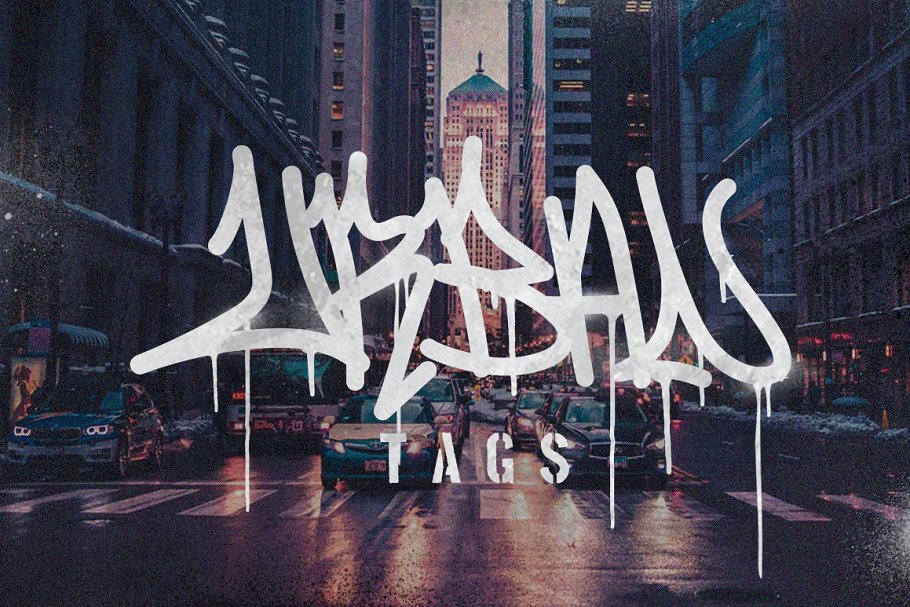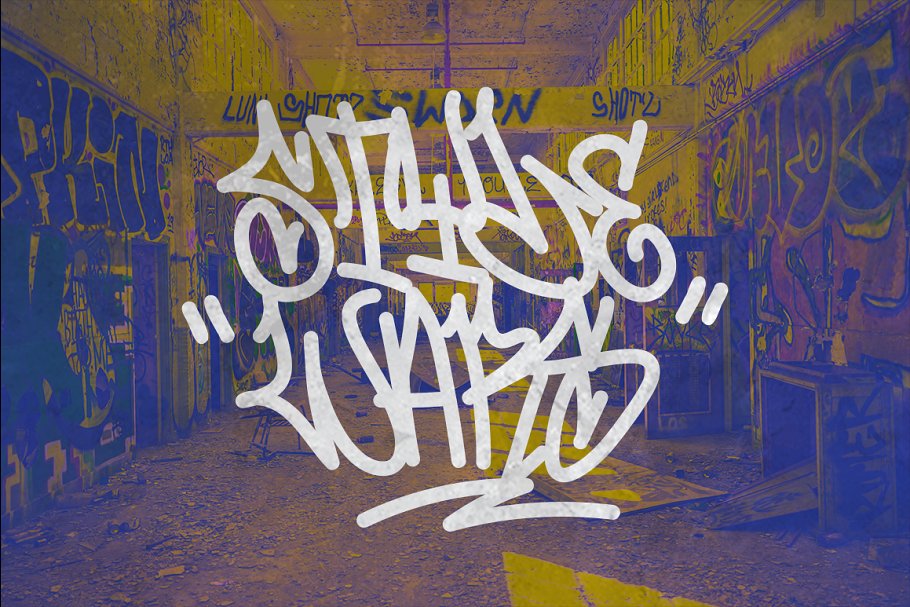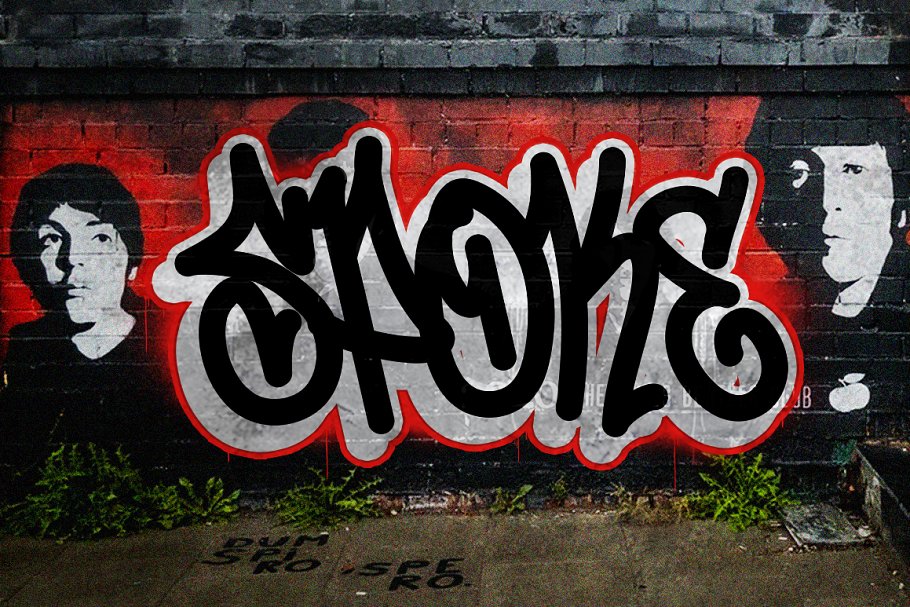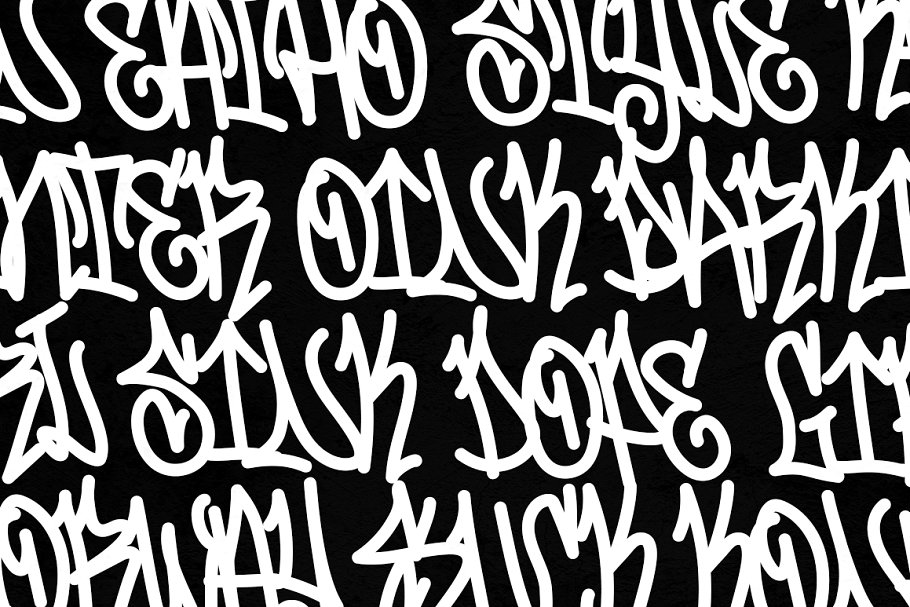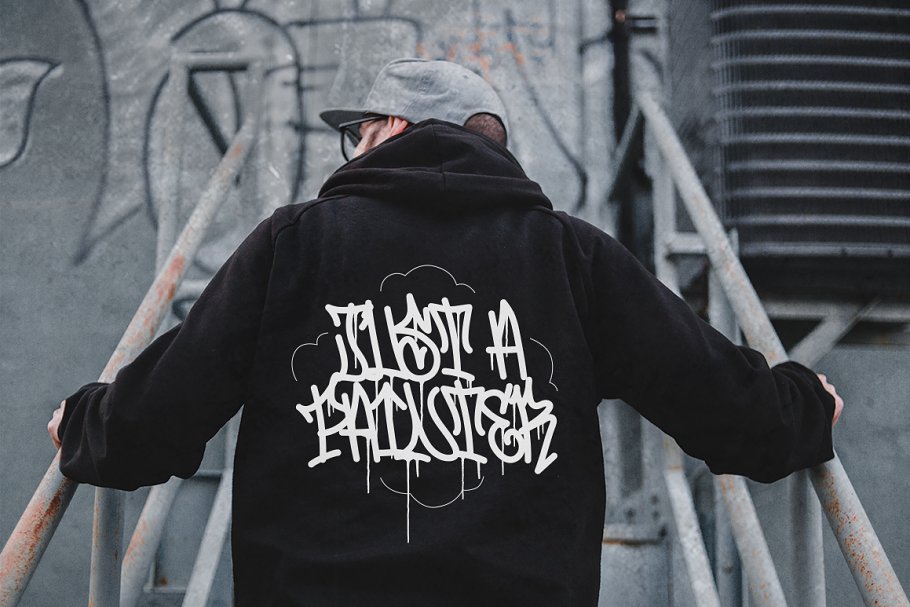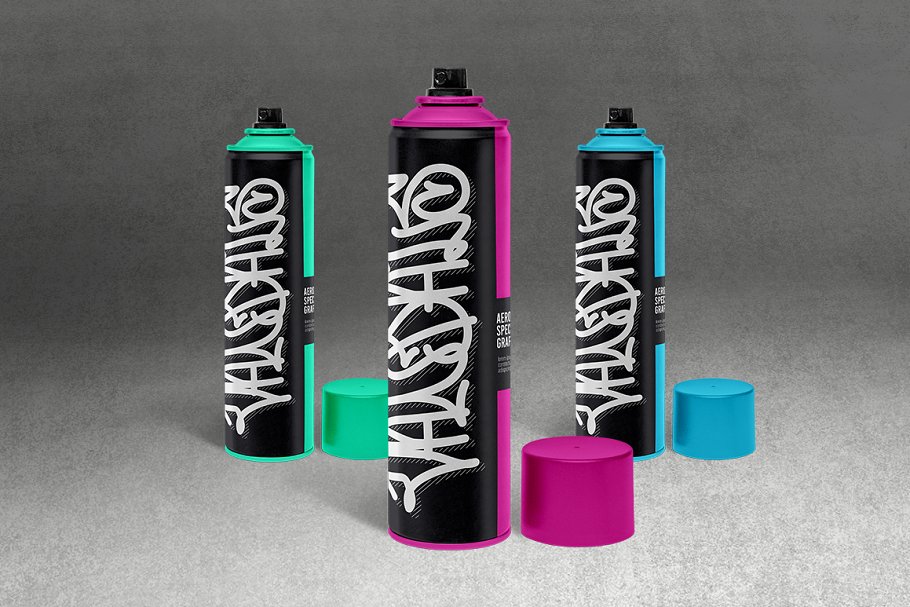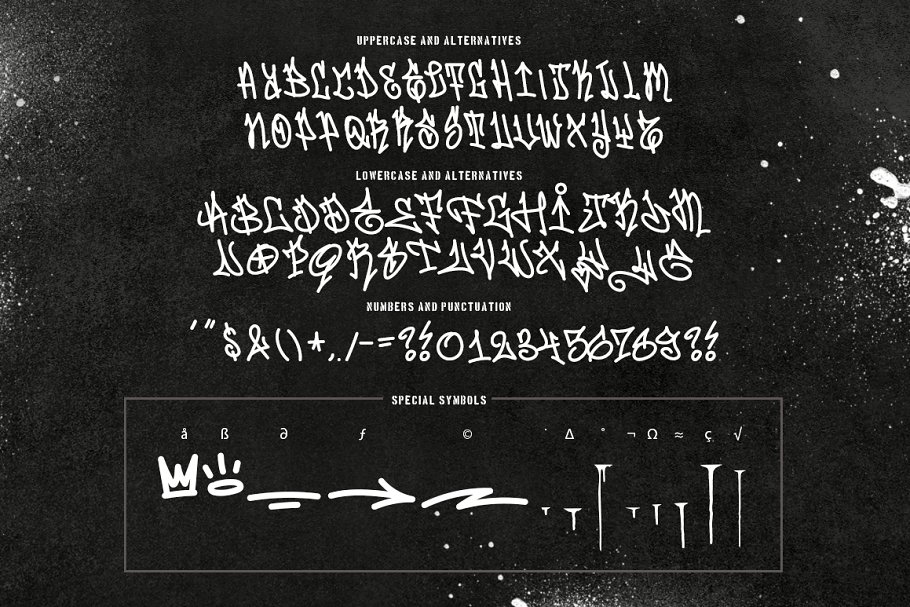
About the Graffiti Inspired Urban Tags Font
Inspired from tagging graffiti marker in the streets and my real experiences in graffiti scenes, Urban Tags comes with iconic rounded tip marker, this style often used by several graffiti artist around the world because the style is very unique, very fun to write in markers. Perfect if you want realistic Street art style or hip hop for your designs, poster, props etc.
Because this is real graffiti fonts, urban Tags is different like other fonts, the space letter is shorter, for perfect result the Kerning you can adjust manually, because it’s impossible to setting kerning like other regular fonts.
I put extra glyphs for make the fonts looks more street art, use åß∂ƒ©˙∆˚¬Ω≈ç you can see in the preview.